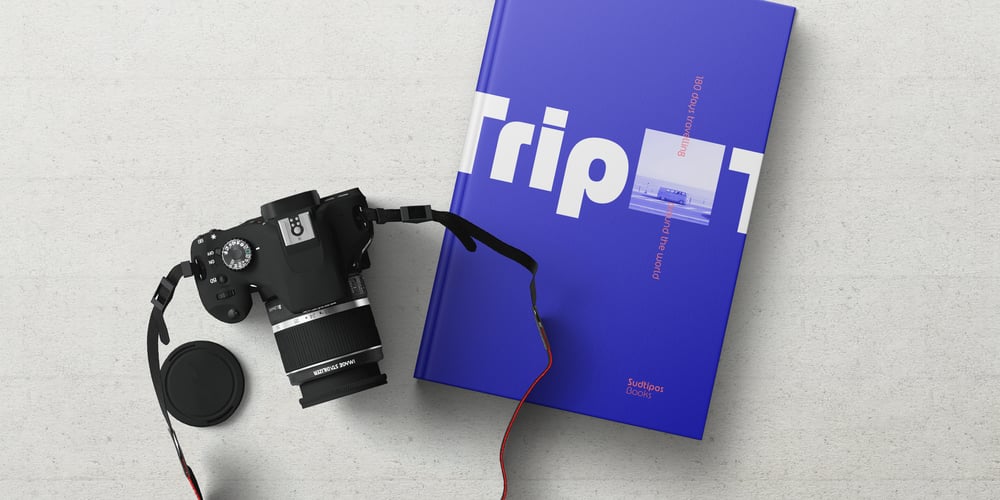
Rondana
Rondana font
Rondana Font Family was designed by Gabriel Martínez Meave and published by Sudtipos. Rondana contains 12 styles and family package options. Crafted in the best tradition of the geometric sans-serif, Rondana is a typographic tribute to the the retro-futuristic aesthetics of the 1960s and 70s, as well as an exercise in purity of line. However, its spirit is decidedly non-bauhausian, since its strokes intentionally deviate from the dull, obvious, ruler-and-compass construction; its arcs and curves being much more complex, tending towards a slightly square shape, imbued with subtle modulations. This sums up to a more organic, flowing, extroverted personality than the one just expected from the use of plain, simple geometry. Another feature is the conscious use of non-standard shapes for many signs, that are quite legible but somewhat unexpected, such as the E, the g and the ampersand; making Rondana an excellent display face and also giving a particular flavor to the text composed in it, especially in its italic variants —which are, by the way, designer italics in their own right and not just an oblique version of the roman. Rondana comes in twelve variants comprising a wide spectrum of weights, allowing for an extremely diverse range of expression.